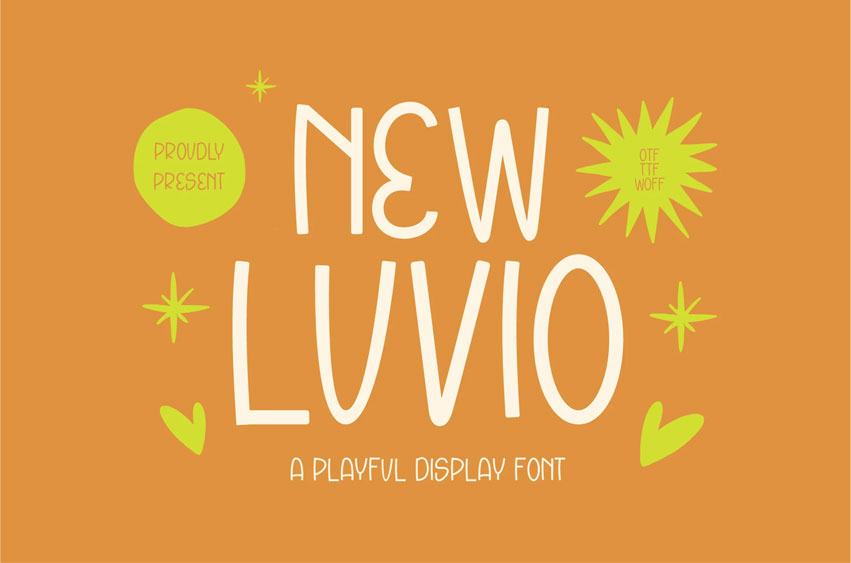
Luvio Font is a bold handwritten typeface designed to feel warm, confident, and instantly human.
With thick, smooth strokes and a lively rhythm, it brings a playful personality to headlines without sacrificing readability.